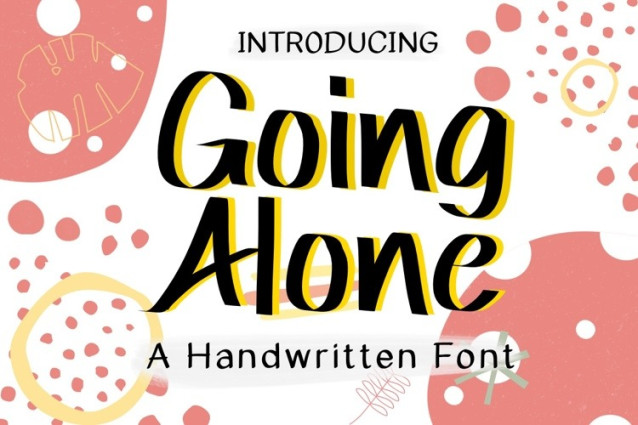
Going Alone Font
Going Alone Font – Handwritten Brush Font brings a playful, expressive vibe to your designs. With bold brush strokes and a fun, casual style, it’s perfect for creative projects, posters, logos, and designs that need a personal, artistic, and dynamic touch.